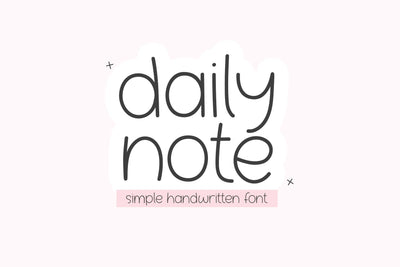
Daily Note - Cute Handwriting Font
Daily Note is a cute handwriting font.
This font is perfect for cricut projects, svg files, goodnotes, planners, stickers, quotes, social media and more!